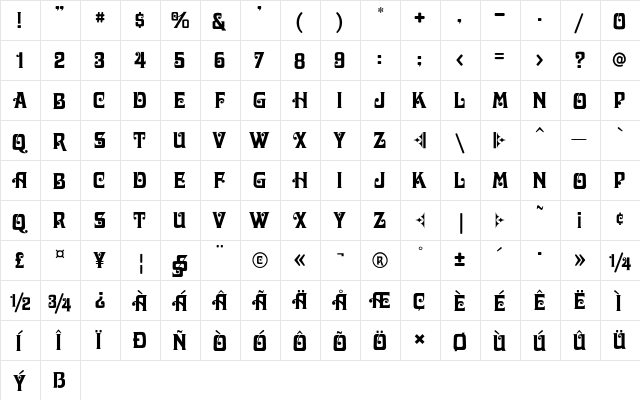
Inagodda Regular
Design Context for Inagodda Typeface
Inagodda is a composed and adaptable typeface that performs quietly and consistently across a wide range of design contexts.